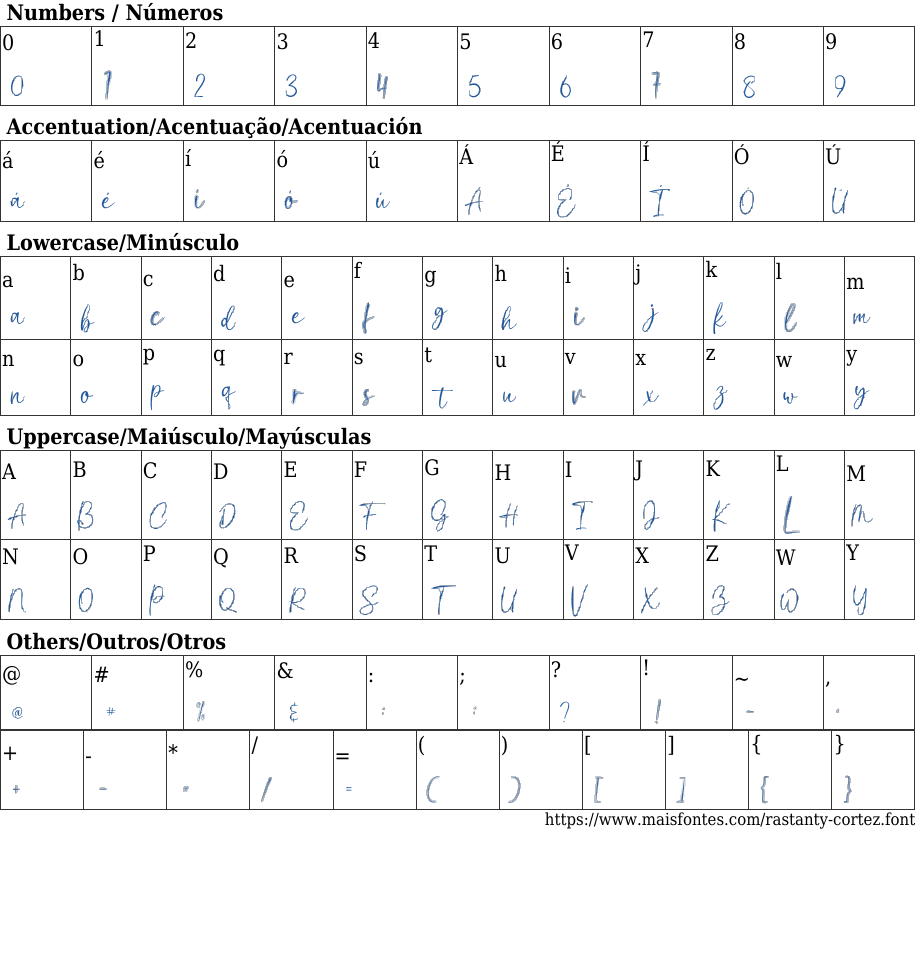
Rastanty Cortez Font - Download rastanty cortez font, a script and handwritten signature font with a soft style and elegant nuances. Installable on pc, mac, linux, ios, and android platforms. Discover the free rastanty cortez font at free font download ! Rastanty cortez consists of sophisticated, elegant, classy and modern handwriting. This font has open type. With a little dirty curvature and made. Rastanty cortez consists of sophisticated, elegant, classy and modern handwriting.
Discover the free rastanty cortez font at free font download ! With a little dirty curvature and made. Rastanty cortez consists of sophisticated, elegant, classy and modern handwriting. Rastanty cortez consists of sophisticated, elegant, classy and modern handwriting. With a little dirty curvature and made. This font has open type. Download rastanty cortez font, a script and handwritten signature font with a soft style and elegant nuances. Installable on pc, mac, linux, ios, and android platforms.
With a little dirty curvature and made. Discover the free rastanty cortez font at free font download ! This font has open type. Rastanty cortez consists of sophisticated, elegant, classy and modern handwriting. Rastanty cortez consists of sophisticated, elegant, classy and modern handwriting. With a little dirty curvature and made. Download rastanty cortez font, a script and handwritten signature font with a soft style and elegant nuances. Installable on pc, mac, linux, ios, and android platforms.
Rastanty cortez consists of sophisticated, elegant, classy and modern handwriting. Discover the free rastanty cortez font at free font download ! Download rastanty cortez font, a script and handwritten signature font with a soft style and elegant nuances. Rastanty cortez consists of sophisticated, elegant, classy and modern handwriting. Installable on pc, mac, linux, ios, and android platforms.
With a little dirty curvature and made. This font has open type. Rastanty cortez consists of sophisticated, elegant, classy and modern handwriting. Rastanty cortez consists of sophisticated, elegant, classy and modern handwriting. Discover the free rastanty cortez font at free font download !
Installable on pc, mac, linux, ios, and android platforms. Rastanty cortez consists of sophisticated, elegant, classy and modern handwriting. With a little dirty curvature and made. This font has open type.
With a little dirty curvature and made. This font has open type. Rastanty cortez consists of sophisticated, elegant, classy and modern handwriting. Rastanty cortez consists of sophisticated, elegant, classy and modern handwriting. Download rastanty cortez font, a script and handwritten signature font with a soft style and elegant nuances.
Download rastanty cortez font, a script and handwritten signature font with a soft style and elegant nuances. With a little dirty curvature and made. Discover the free rastanty cortez font at free font download ! This font has open type. Installable on pc, mac, linux, ios, and android platforms.
Installable on pc, mac, linux, ios, and android platforms. This font has open type. Rastanty cortez consists of sophisticated, elegant, classy and modern handwriting. Discover the free rastanty cortez font at free font download ! With a little dirty curvature and made.
Rastanty Cortez By realtype.co TheHungryJPEG
With a little dirty curvature and made. Download rastanty cortez font, a script and handwritten signature font with a soft style and elegant nuances. Rastanty cortez consists of sophisticated, elegant, classy and modern handwriting. Installable on pc, mac, linux, ios, and android platforms. This font has open type.
Rastanty Cortez Free Font Download MaisFontes
Rastanty cortez consists of sophisticated, elegant, classy and modern handwriting. With a little dirty curvature and made. Discover the free rastanty cortez font at free font download ! Download rastanty cortez font, a script and handwritten signature font with a soft style and elegant nuances. Installable on pc, mac, linux, ios, and android platforms.
Rastanty Cortez Font in 2023 Free fonts download, Free font, Cool fonts
This font has open type. Download rastanty cortez font, a script and handwritten signature font with a soft style and elegant nuances. Discover the free rastanty cortez font at free font download ! Rastanty cortez consists of sophisticated, elegant, classy and modern handwriting. With a little dirty curvature and made.
Rastanty Cortez By realtype.co TheHungryJPEG
With a little dirty curvature and made. Rastanty cortez consists of sophisticated, elegant, classy and modern handwriting. This font has open type. Download rastanty cortez font, a script and handwritten signature font with a soft style and elegant nuances. With a little dirty curvature and made.
Discover The Free Rastanty Cortez Font At Free Font Download !
This font has open type. With a little dirty curvature and made. Rastanty cortez consists of sophisticated, elegant, classy and modern handwriting.
Rastanty Cortez Consists Of Sophisticated, Elegant, Classy And Modern Handwriting.